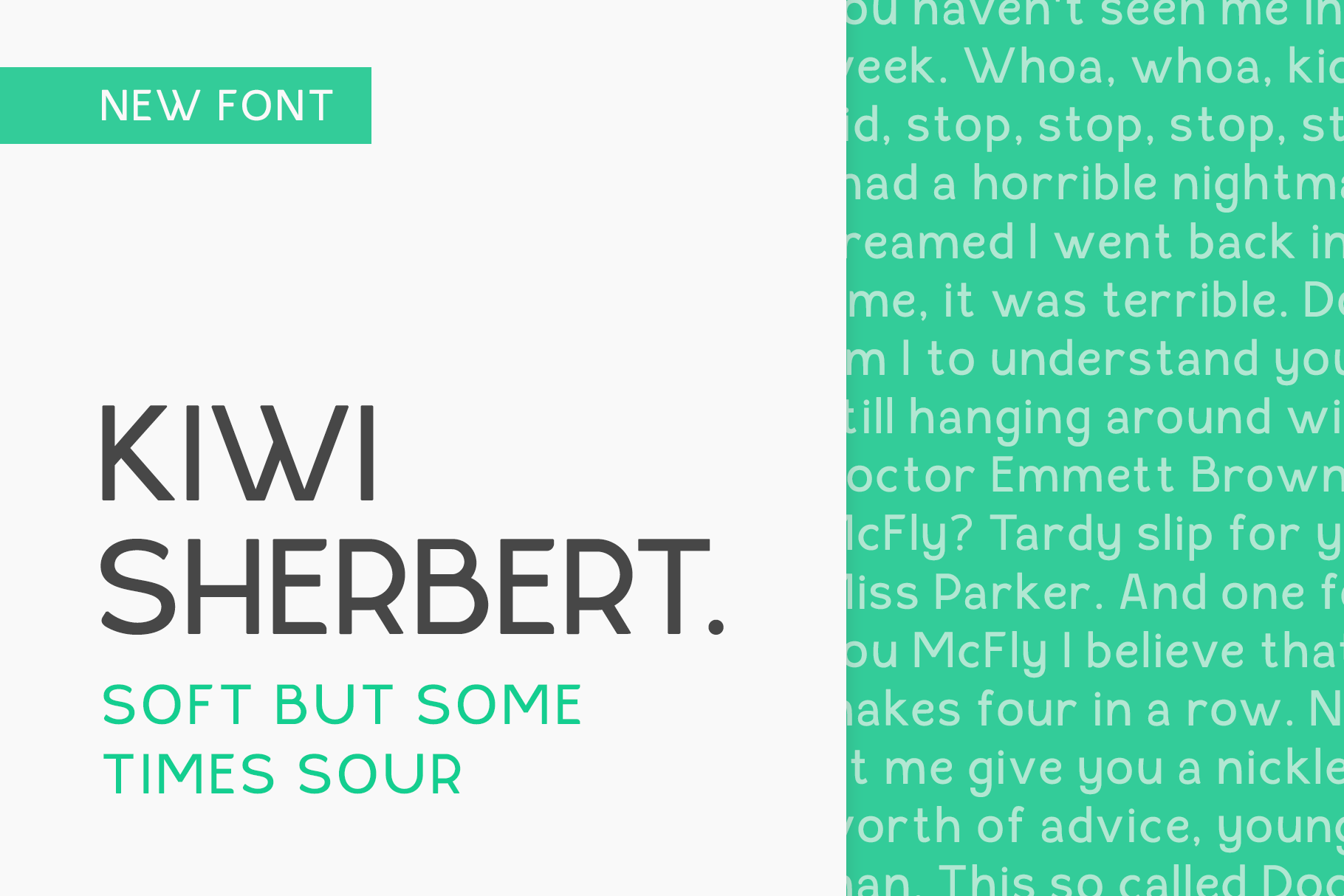
Kiwi Sherbert Display Font
Kiwi Sherbert is that fruit based font that brings a furry tartness to all your design needs. It's good ol' fashioned family font fun that everyone can enjoy!